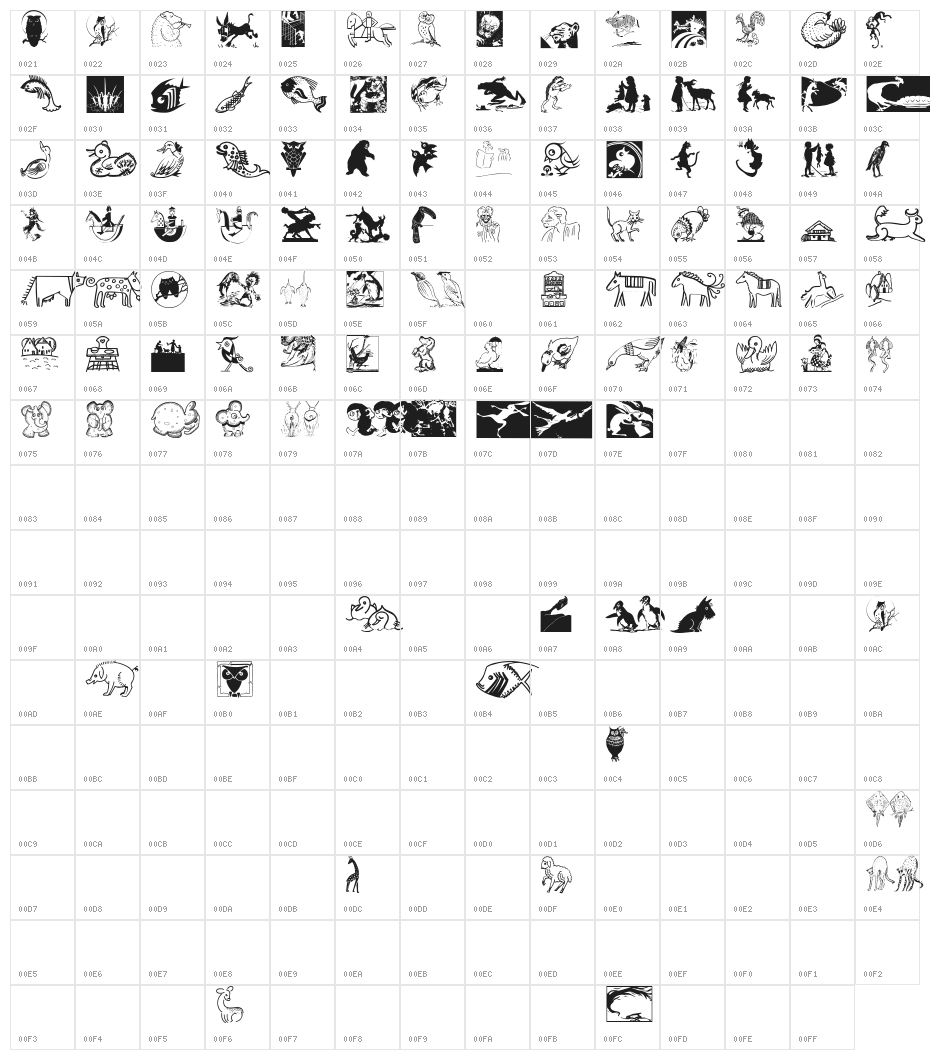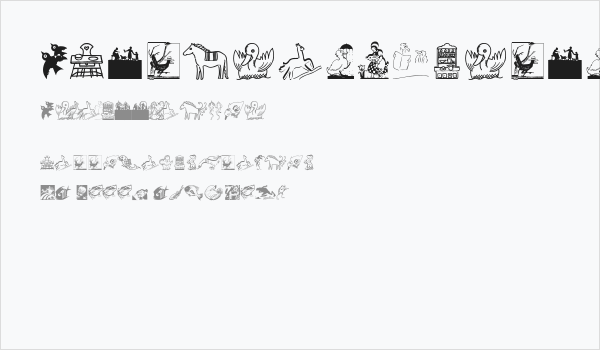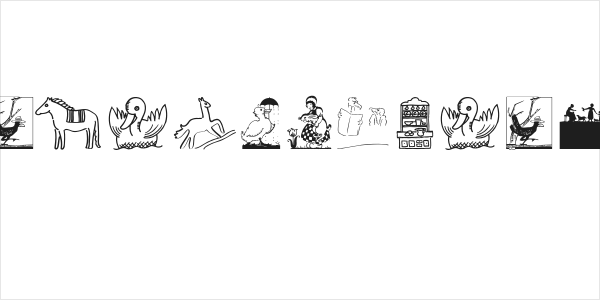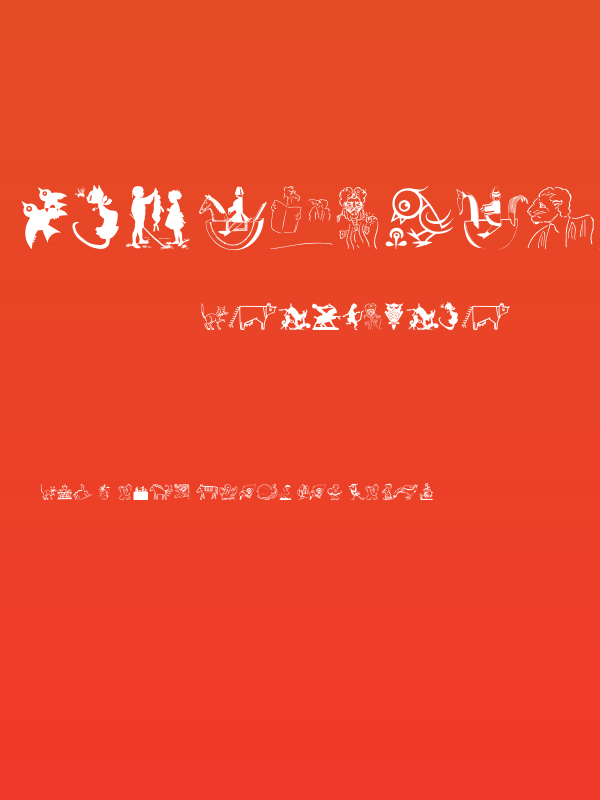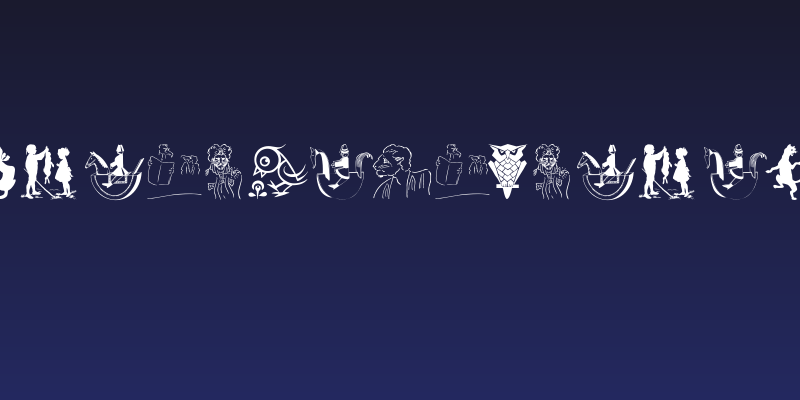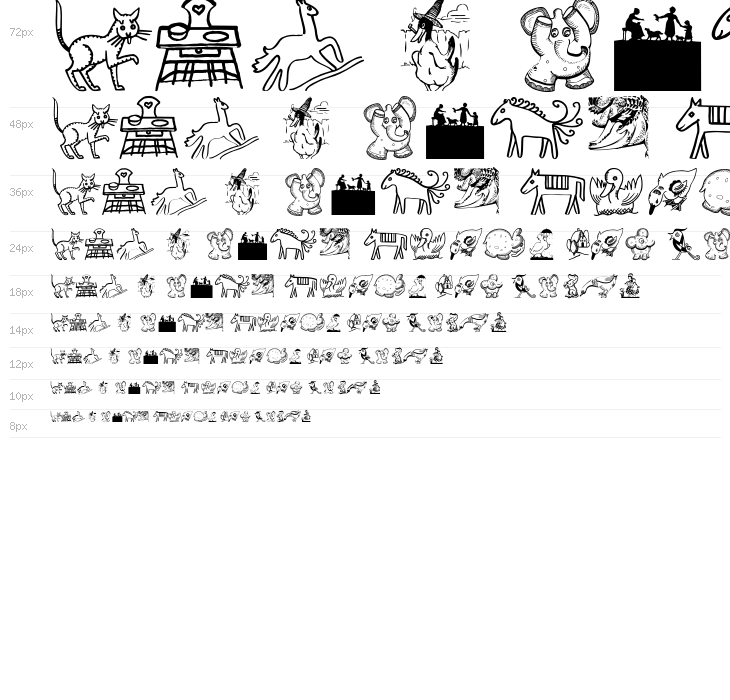
ChildrensDarlings Font
ChildrensDarlings Description
| Overall Style | Decorative, Playful, Storybook |
| Use Case | Illustrative accents, decorative elements, thematic dividers, children's content. |
| Proposed Projects | Children's books, educational materials, posters, invitations, scrapbooking, decorative headings. |